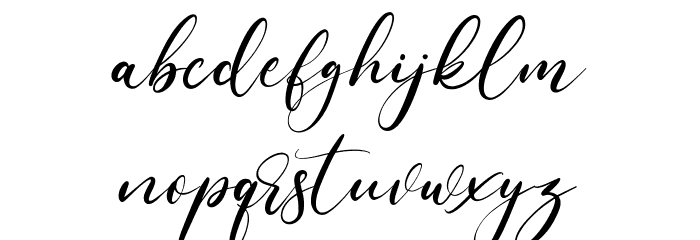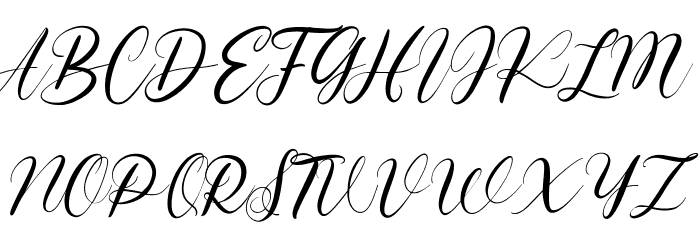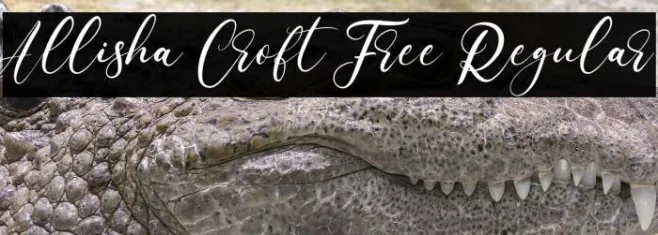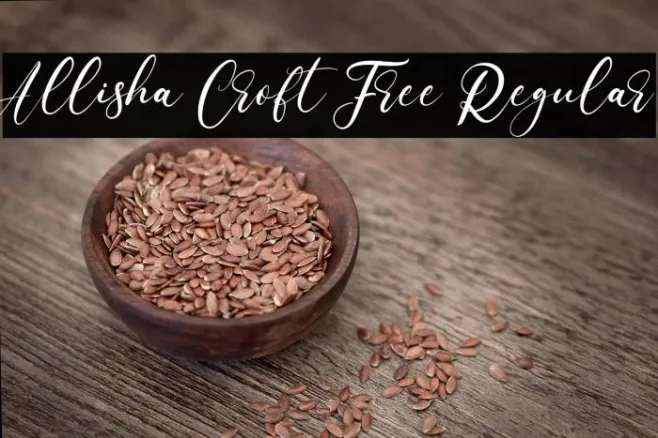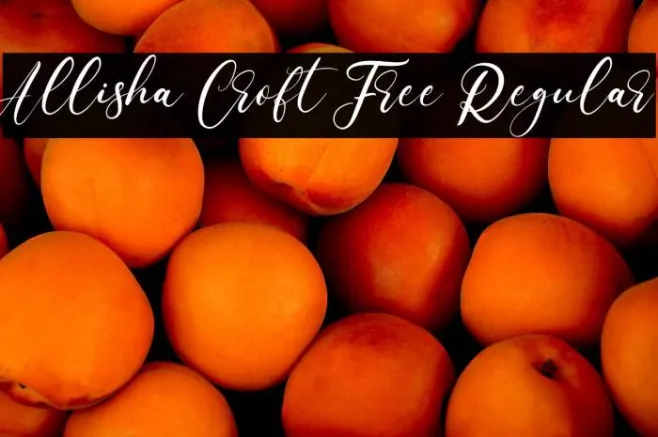
Allisha Croft Free Regular Font
This font exudes elegance and sophistication with its flowing script style. The characters are intricately designed with graceful curves and loops, creating a sense of fluidity and movement. The uppercase letters are particularly ornate, featuring elaborate swashes that extend beyond the baseline, adding a touch of drama. The lowercase letters maintain a consistent style, with smooth connections between strokes that enhance readability. This font is perfect for projects that require a touch of class and refinement, such as wedding invitations, luxury branding, or high-end product packaging. Its decorative nature makes it ideal for headlines or short text where it can be appreciated in detail.
An elegant and sophisticated script font with flowing curves and ornate swashes.
- Proposed Projects: Wedding invitations, luxury branding, high-end product packaging, elegant headlines.